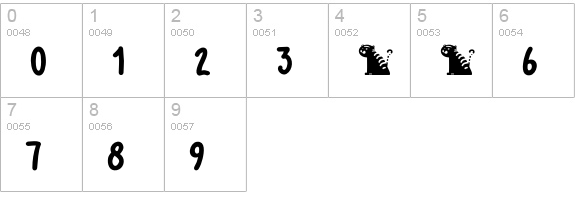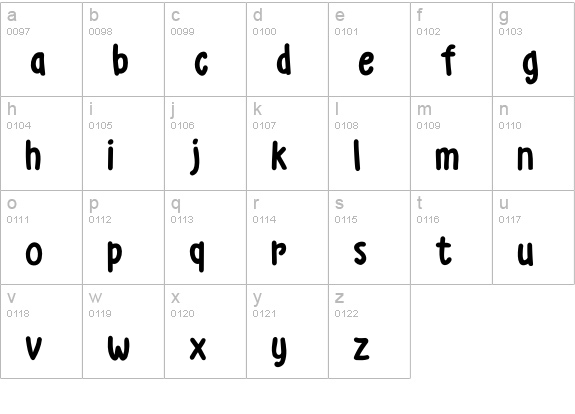
DK Grumpy Tiger Font Details
DK Grumpy Tiger is a free for personal use font in the Script > Handwritten category, designed by Timefont2. It has been downloaded 42 times and is available for Windows, Mac and Linux.
Introducing DK Grumpy Tiger font, a bold and expressive typeface designed to make a powerful statement. With its strong and distinctive design, this font is perfect for adding a touch of attitude to your projects. The rugged edges and fierce style of DK Grumpy Tiger font will grab attention and leave a lasting impression.